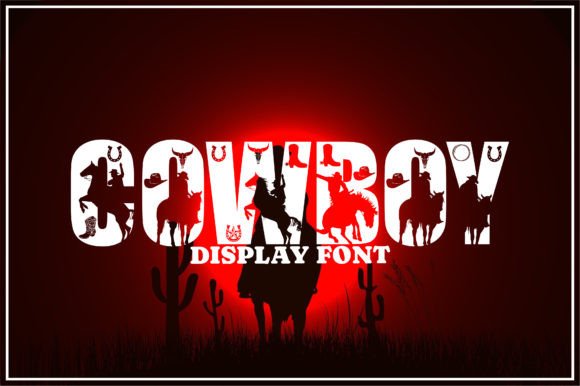
Cowboy Font
Cowboy is a dramatic cowboy styled display font. It is perfectly suitable for any design or crafty idea! Add it confidently to your projects and you will love the results!